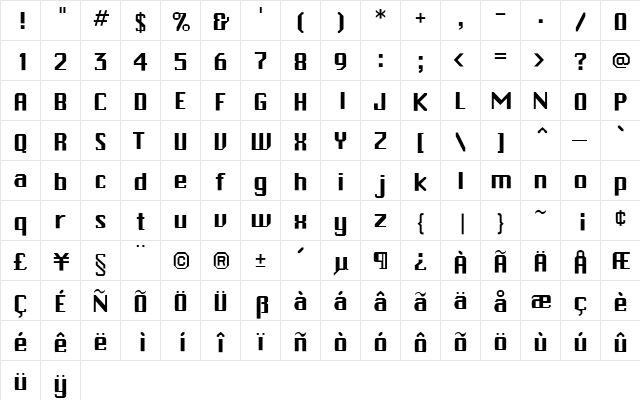
RSChiTown Regular
Design Context for RSChiTown Typeface
RSChiTown takes a measured approach to typography — its balanced proportions and neutral character make it a reliable workhorse for both digital and print work.